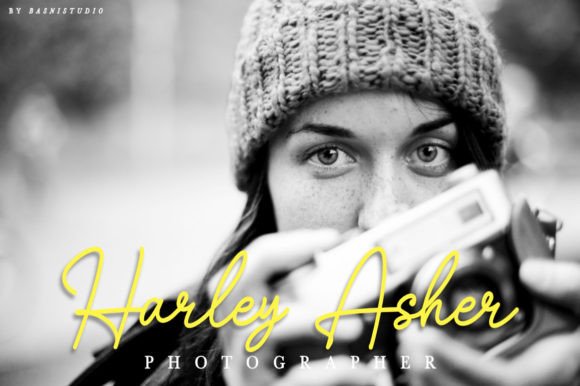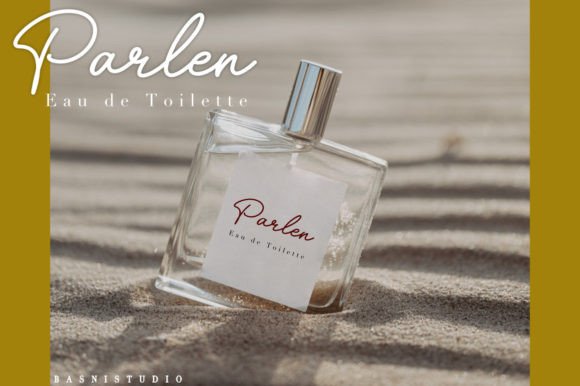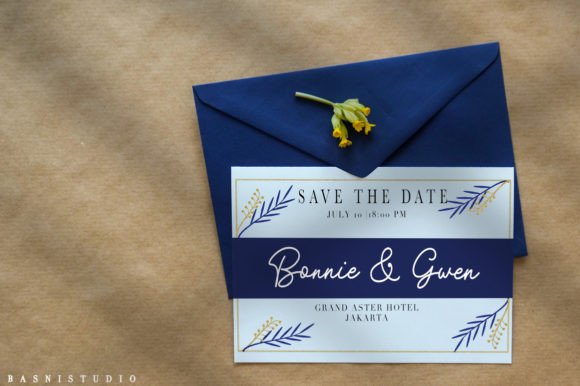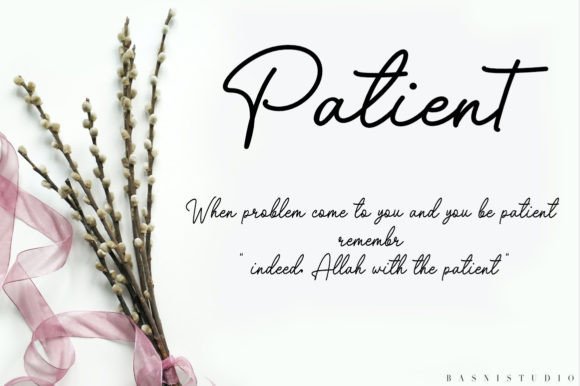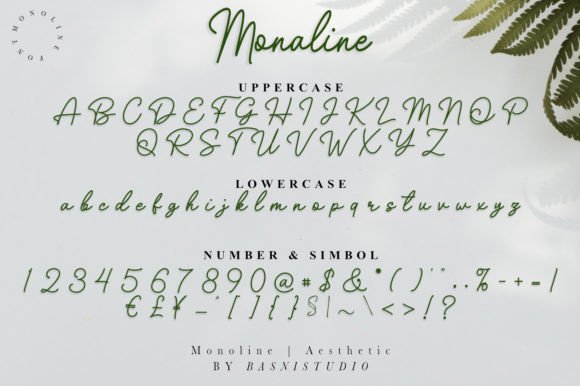
Introduction to Monaline Font
Do you remember that moment when you were working on a creative project and couldn’t find the right font to match your design? The struggle is real for designers, and it’s frustrating when the perfect font can make or break a project’s aesthetic. But what if I told you that there’s a solution that can elevate your designs and make them stand out? Say hello to the Monaline Font, a stunning natural, aesthetic, and modern monoline font that’s perfect for branding, websites, design invitations, and editorial designs.
As a designer, you know how valuable it is to have access to high-quality design resources like the Monaline Font. With its precision and attention to detail, this font is a game-changer for any creative project. Whether you’re working on a logo, t-shirt design, or print design, the Monaline Font is sure to add a touch of cuteness and sophistication to your work.
- Unique characteristics include elegant and stylish lettering, making it suitable for a wide range of design projects.
- Designed to provide a professional and sophisticated look, Monaline Font is an excellent addition to any design resource collection.
Honest Review: Monaline Font
I recently stumbled upon the Monaline Font while searching for a design resource for my current creative project. I was impressed by its unique aesthetic and decided to give it a try.
The Monaline Font has a lot of great qualities. Here are some of the things that work well: ✨
- High-quality typography: The font is crisp and clear, making it perfect for any design project.
- Limited customization options: While the font is high-quality, it’s not particularly customizable.
- No bold or italic variations: If you need bold or italic text, you may need to look elsewhere.
Overall, I’m impressed with the Monaline Font. It’s a great design resource for anyone working on a creative project. While it may have some limitations, its high-quality typography and transparent background make it a valuable addition to any designer’s toolkit.
Monaline Font is commonly used in creative projects, including digital art, graphic design, and typography. It’s also a great resource for designers looking for a unique and high-quality font to add to their design arsenal.